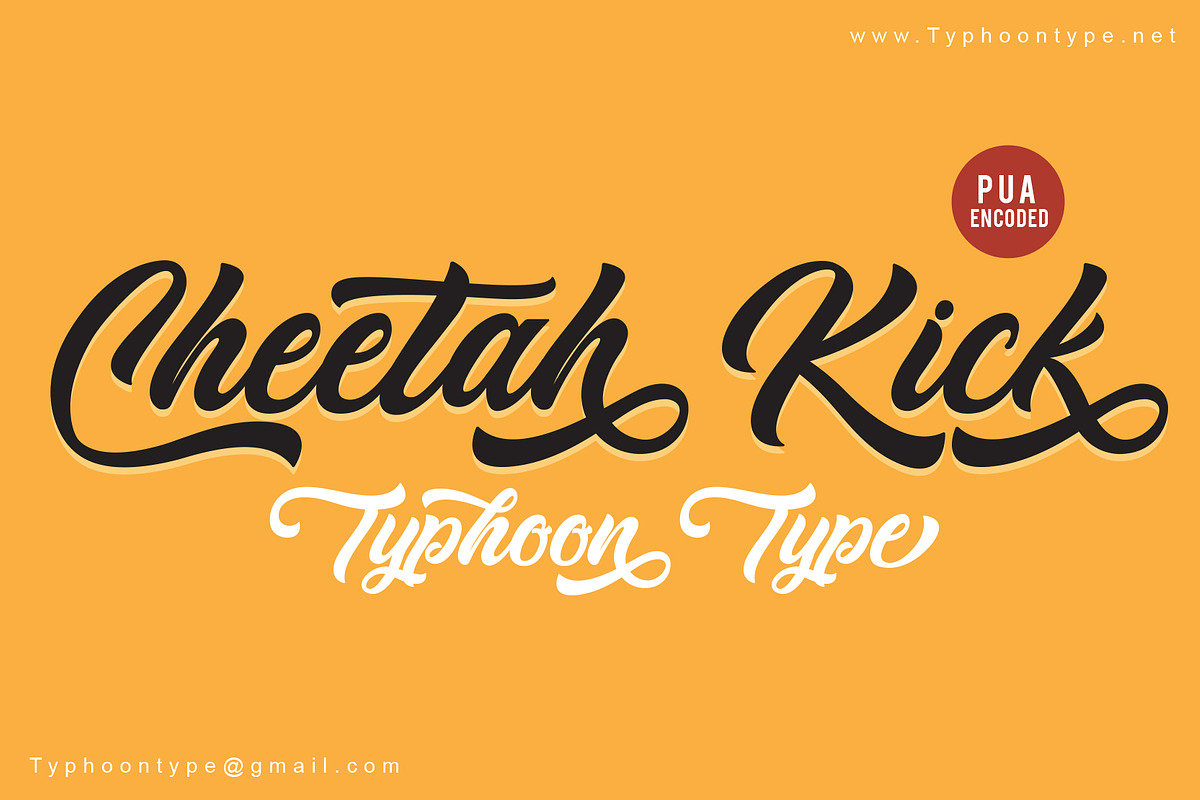
Cheetah Kick font
Cheetah Kick This font perfect for logos, name tag, advertising, product packaging, clothing, social media & greeting cards.
Why Cheetah Kick font is worth a look
Cheetah Kick font by TyphoonStudio fits naturally into Branding, posters, packaging, typography.